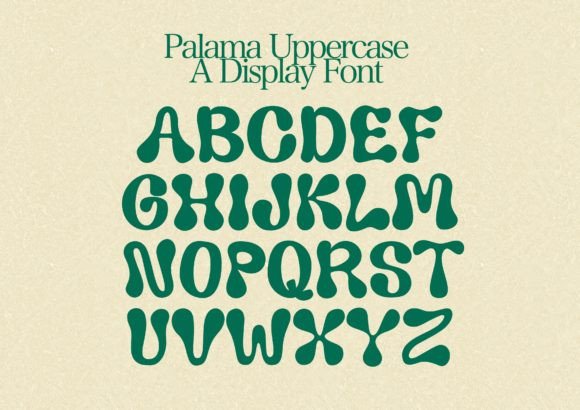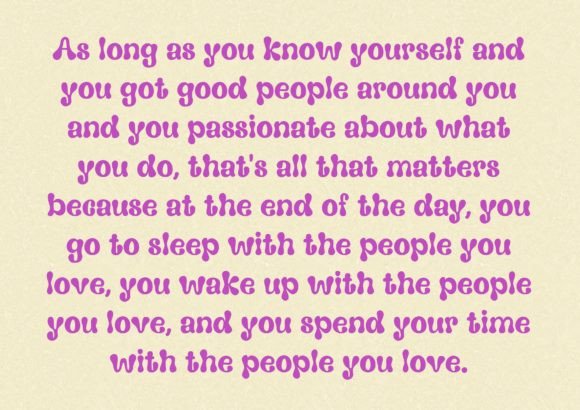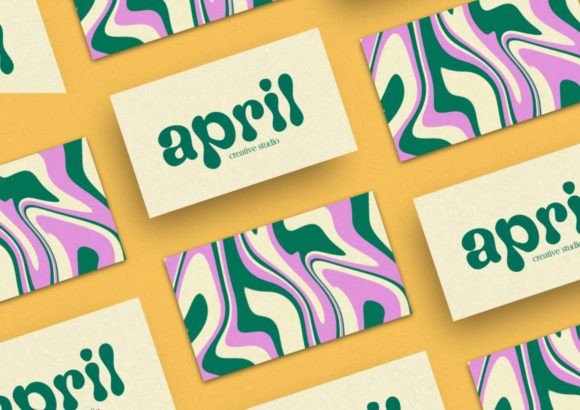
Introduction to Palama Font
Introducing Palama – a bold retro display font with a playful look.
Palama Font will be perfect for stickers, greeting cards, logos, posters, or anything that requires a fun and happy look .
Palama Font offers exceptional quality and versatility, making it a valuable addition to your design toolkit. Whether you’re creating for personal projects or commercial use, Palama Font delivers professional results.